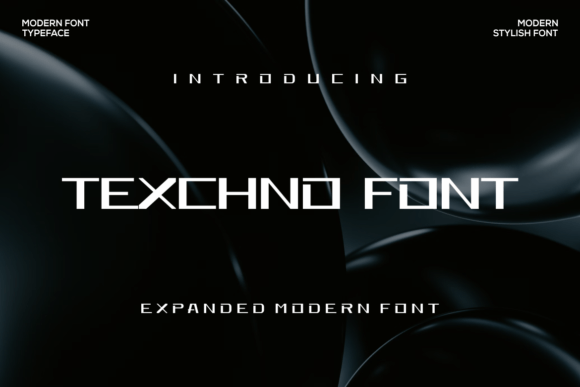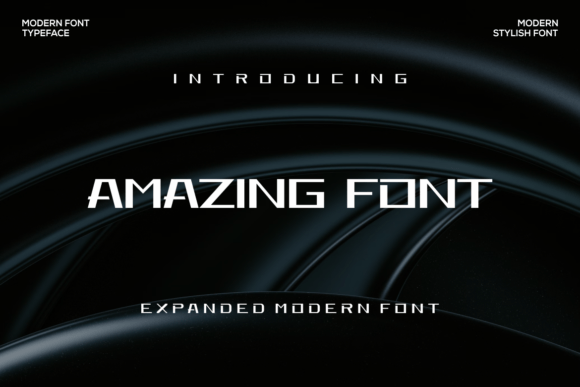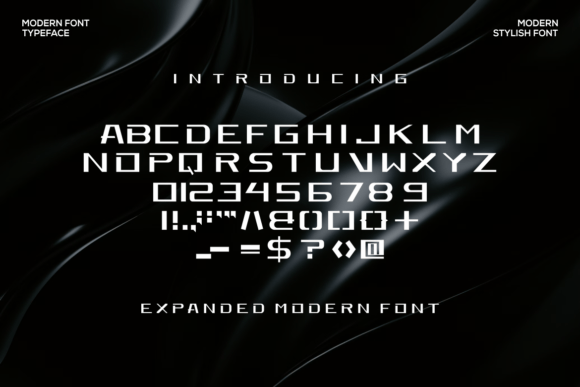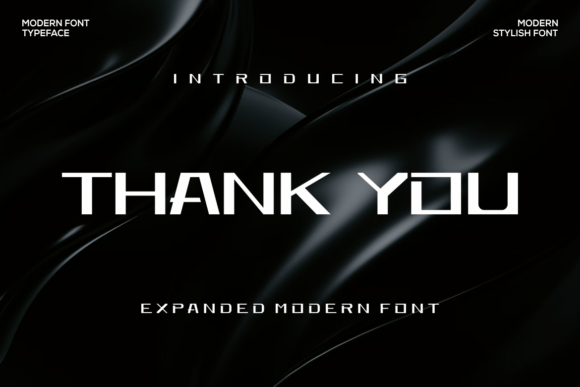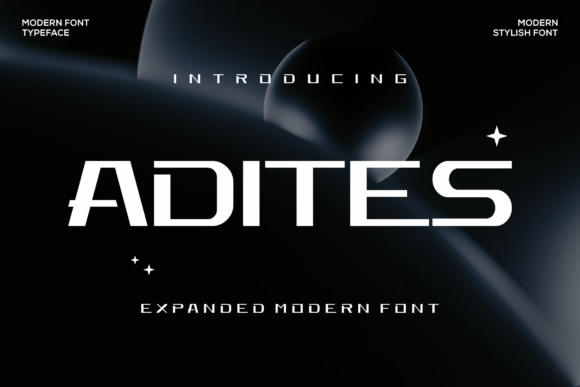
Introducing Adites Font: The Modern Display Font for Bold Designs
In the world of design, fonts play a crucial role in conveying the message and tone of a brand. A well-chosen font can elevate a design from ordinary to extraordinary, making it a vital element in any branding project. Today, we’re excited to introduce Adites Font, a modern display font that’s perfect for designers and crafters looking to add a touch of boldness and authenticity to their work.
What is Adites Font?
Adites Font is a bold and authentic display font designed to make a statement. Its modern aesthetic and clean lines make it an ideal choice for a wide range of design projects, from logos and t-shirt printing to creative products and more. This font is crafted to be versatile, allowing designers to use it in various contexts and still achieve a professional look.
Key Features of Adites Font
- Bold and Authentic: Adites Font boasts a bold and authentic style that’s sure to grab attention. Its unique character set makes it perfect for designs that require a strong personality.
- Modern Aesthetic: With its clean lines and modern design, Adites Font is perfect for designers who want to create fresh and contemporary designs.
- Versatile: This font is designed to be versatile, making it suitable for a wide range of design projects, from logos and branding to t-shirt printing and creative products.
- Easily Readable: Despite its bold style, Adites Font is easily readable, making it perfect for designs that require a clear and concise message.
Use Cases for Adites Font
Adites Font is perfect for a variety of design projects, including:
- Logo Design: Create a bold and memorable logo for your brand with Adites Font.
- T-Shirt Printing: Add a touch of modern style to your t-shirt designs with this versatile font.
- Branding: Use Adites Font to create a consistent brand image across all your marketing materials.
- Creative Products: Add a bold and authentic touch to your creative products, such as posters, flyers, and brochures.
Why Choose Adites Font?
With so many fonts available, why choose Adites Font? Here are a few reasons why designers and crafters love this modern display font:
- Unique Style: Adites Font offers a unique style that’s sure to make your designs stand out from the crowd.
- High-Quality: Adites Font is a high-quality font that’s designed to deliver exceptional results.
| Font Name | Adites Font |
| Author | agusbolang1616 |